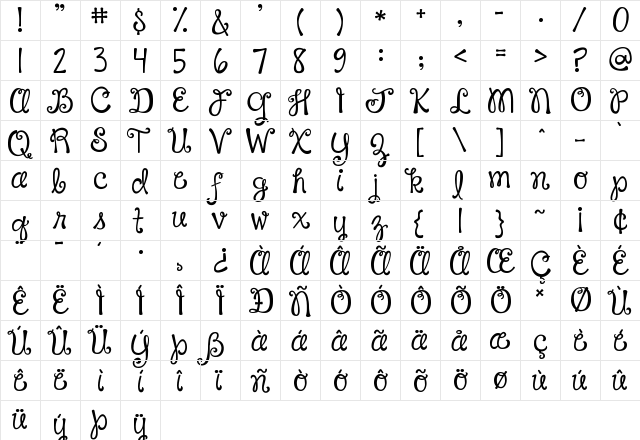
Janda Happy Day Regular
| Foundry | Kimberly Geswein |
| Designer | Kimberly Geswein |
Design Context for Janda Happy Day Typeface
Janda Happy Day is a composed and adaptable typeface that performs quietly and consistently across a wide range of design contexts.